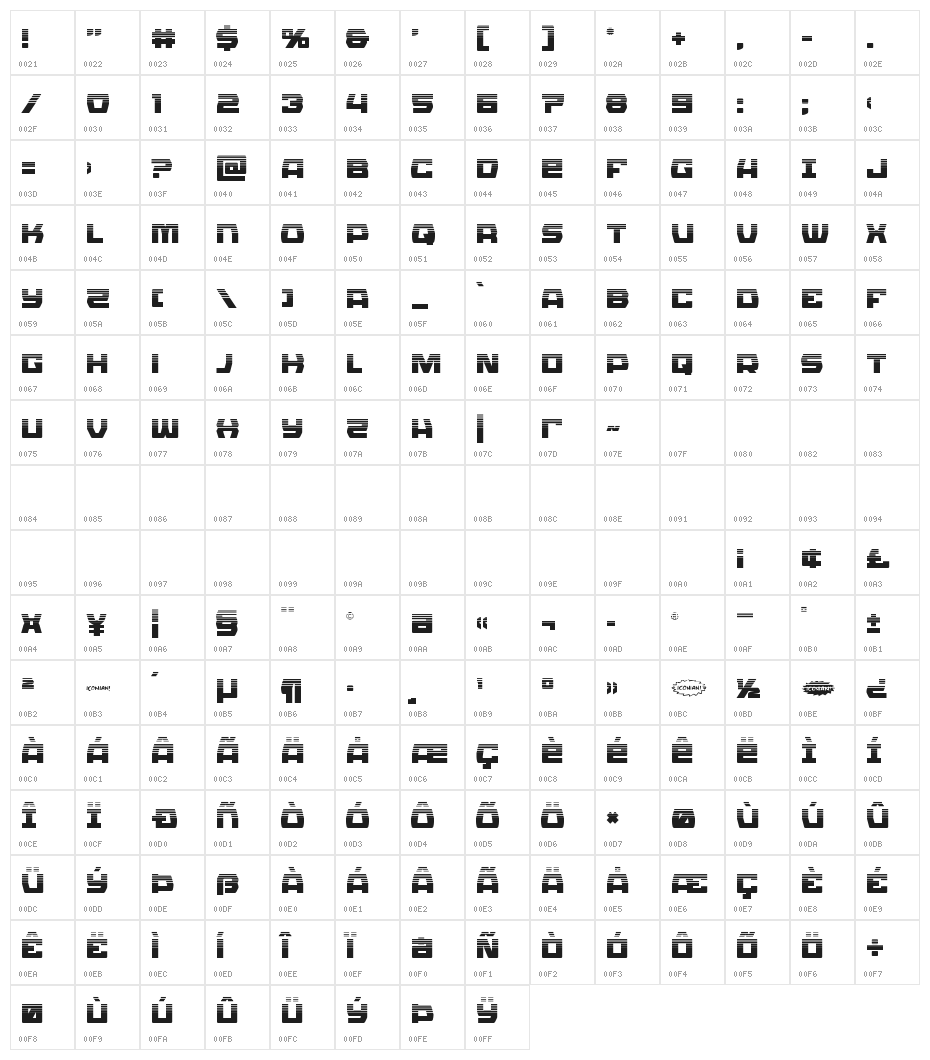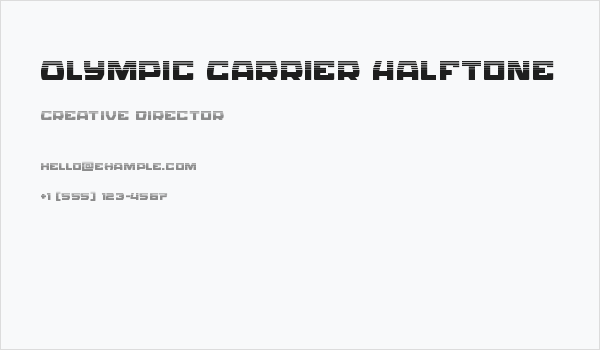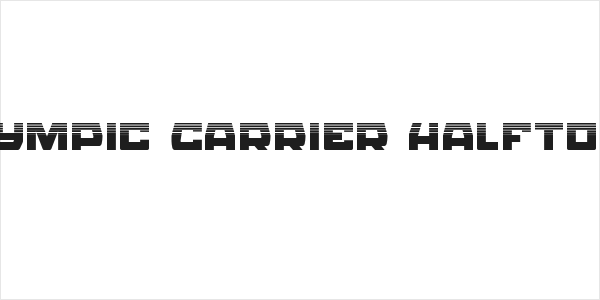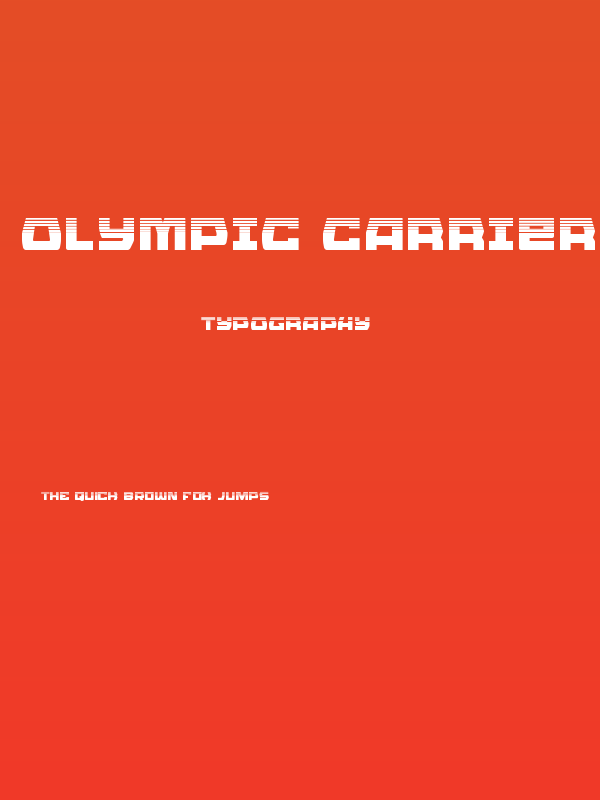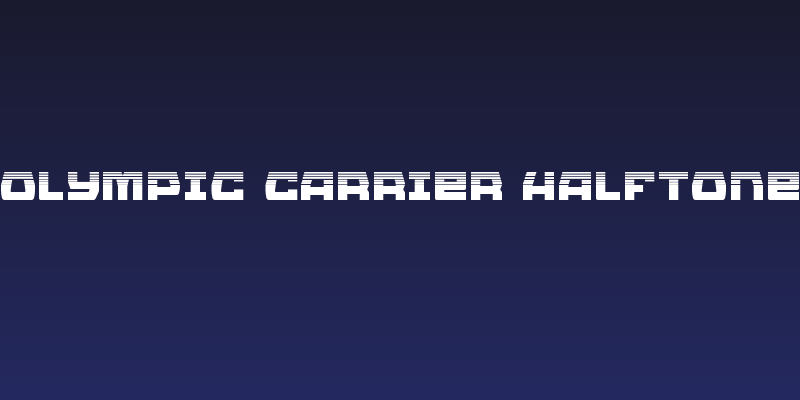
Olympic Carrier Halftone Font
Olympic Carrier Halftone Description
This font features a bold and striking design with a halftone effect that gives it a unique, futuristic appearance. The characters are constructed with solid, block-like shapes that are intersected by horizontal lines, creating a sense of movement and depth. The uppercase and lowercase letters maintain a consistent style, with the halftone lines adding a dynamic texture. The numerals and special characters follow the same design principles, ensuring a cohesive look across all glyphs. This font is ideal for projects that require a modern and eye-catching aesthetic.
| Overall Style | Futuristic, Modern |
| Proposed Projects | Ideal for sci-fi themed designs, video game titles, posters, and branding that requires a modern, edgy look. |